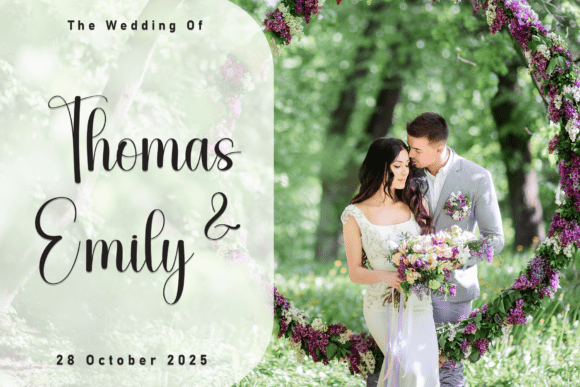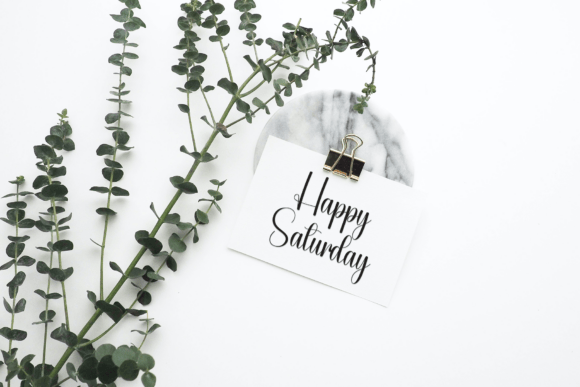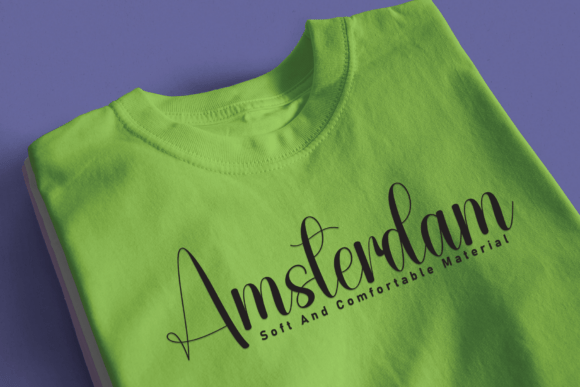
Introduction to Simple Delight Font
Simple Delight is a stylish script font that exudes artistic flair and contemporary elegance.
Featuring fluid brush strokes, dynamic curves, and expressive letterforms, it captures the essence of hand-painted calligraphy with a modern twist Ideal for logos, invitations, packaging, and social media graphics, it adds a creative and sophisticated touch to any design.
Simple Delight Font offers exceptional quality and versatility, making it a valuable addition to your design toolkit. Whether you’re creating for personal projects or commercial use, Simple Delight Font delivers professional results.